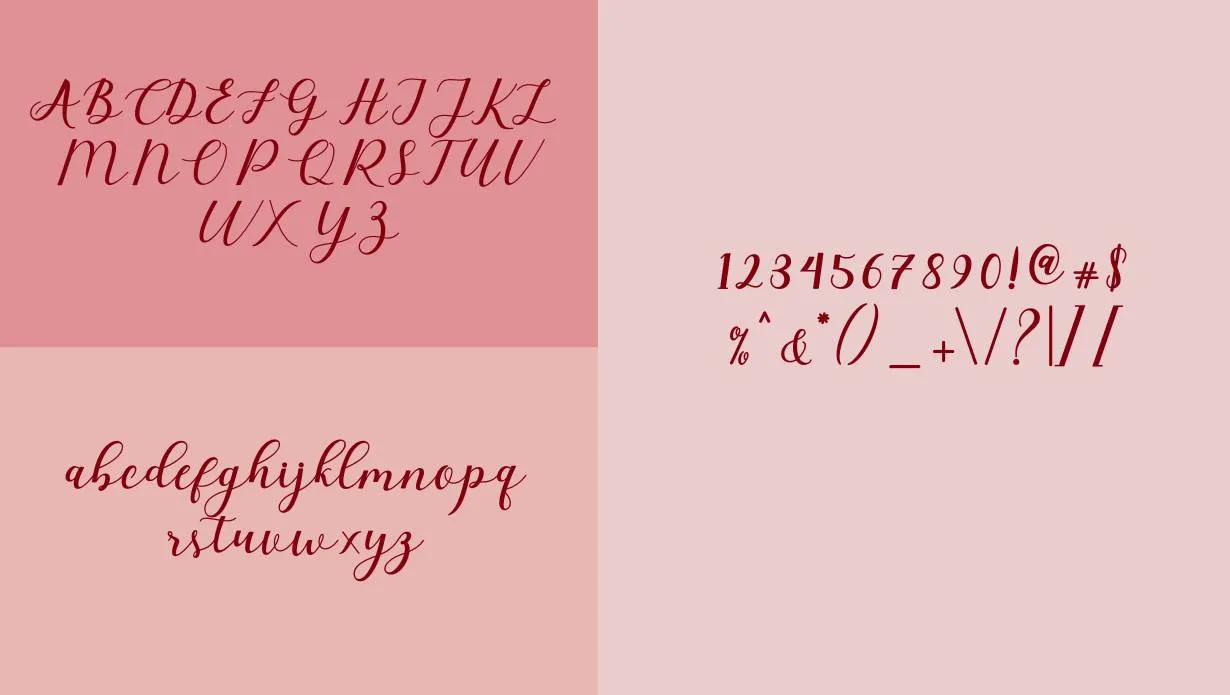
The Elizabeth Font is like a royal invitation in typography, adding an elegant and sophisticated touch to your designs. Ideal for projects that demand a regal feel, its graceful characters make it perfect for invitations or refined branding.
| Name | Elizabeth Font |
| Designer | Lyubov Kuznetsova |